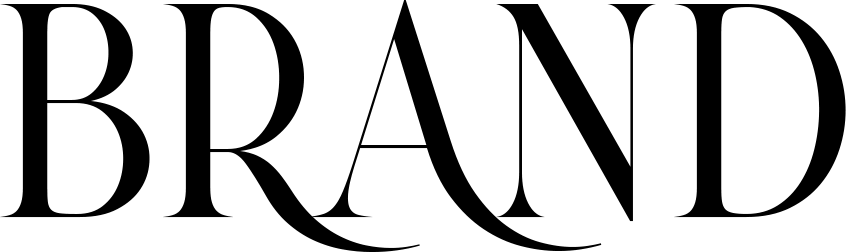
Brand Font
Make your designs ten times better with a second-to-none font. The characters in Brand are designed elegantly and are delicate in some parts. Since this serif font comes in 2 different styles, you have the option to choo…
Make your designs ten times better with a second-to-none font. The characters in Brand are designed elegantly and are delicate in some parts. Since this serif font comes in 2 different styles, you have the option to choose your favorite one. Note that this luxury serif font doesn’t include lowercase letters. You can use it for logos, fashion magazines, flyers, etc.